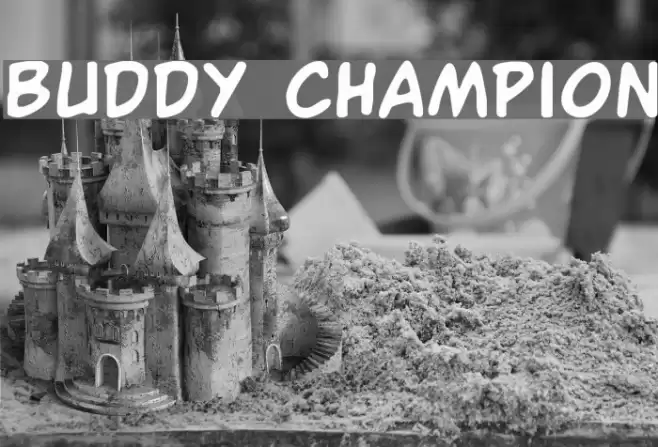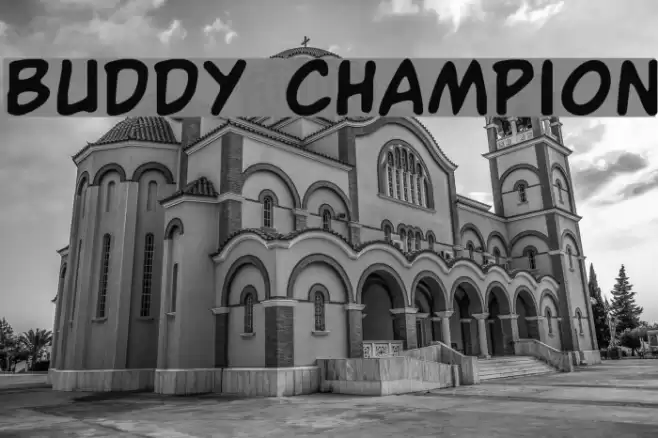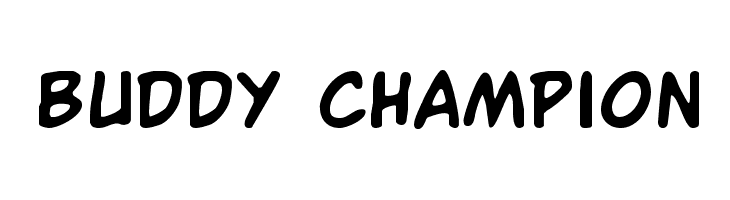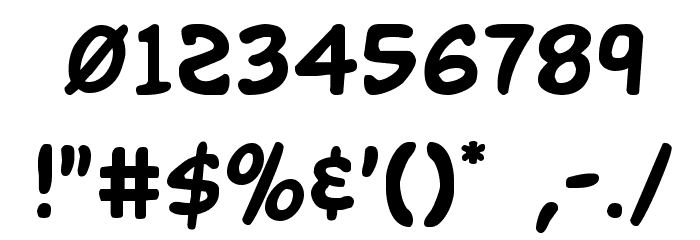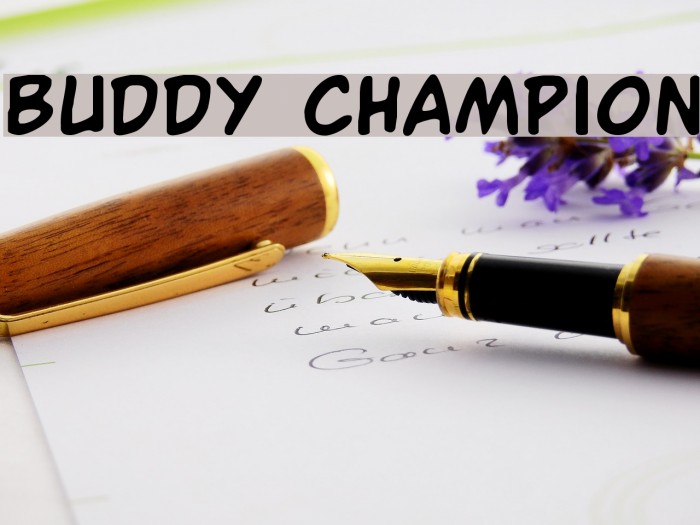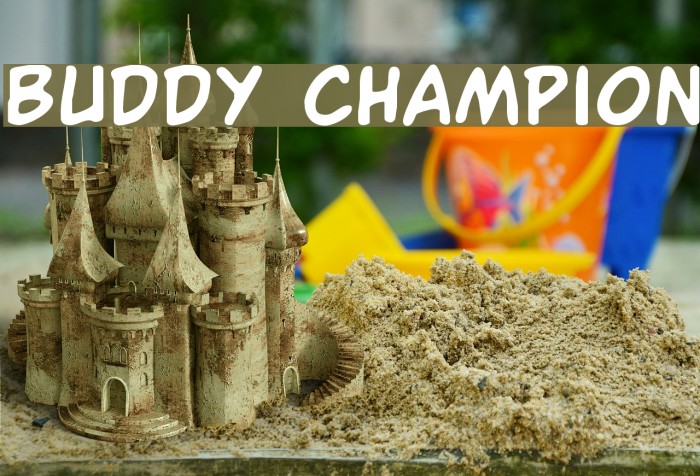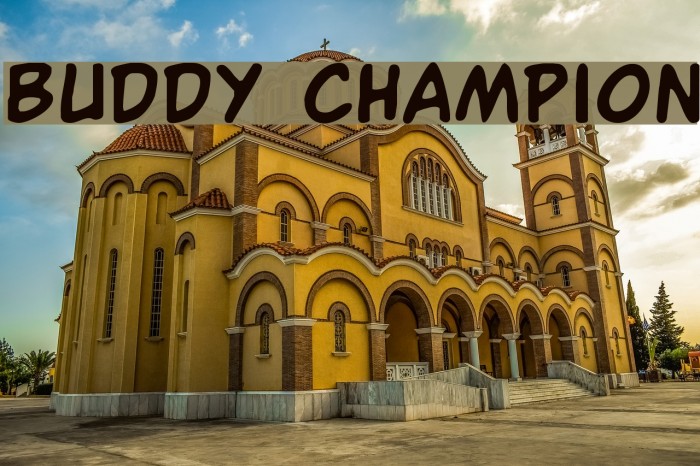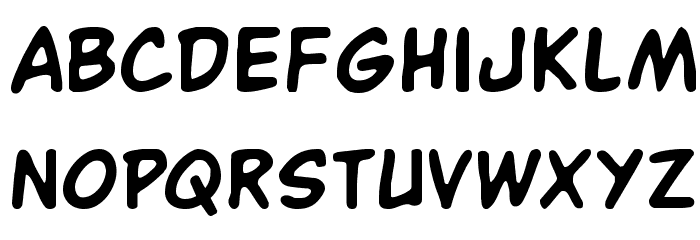
Buddy Champion Font
Buddy Champion Description
This playful and bold font features a handwritten style with rounded edges and a casual, friendly appearance. The characters are slightly irregular, giving it a whimsical and approachable feel. The uppercase and lowercase letters maintain a consistent style, with a slight slant that adds to its informal charm. The numbers and special characters are designed to match the overall aesthetic, making it versatile for various uses. The font's thick strokes and rounded forms make it highly legible, even at smaller sizes, while its unique character adds personality to any text.
A playful, bold handwritten font with rounded edges and a casual style from Comic fonts.
- Proposed Projects: Ideal for children's books, playful branding, casual invitations, and social media graphics.
- Overall Style: Playful